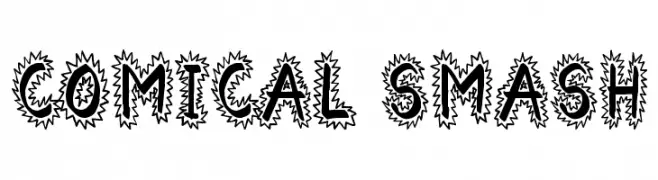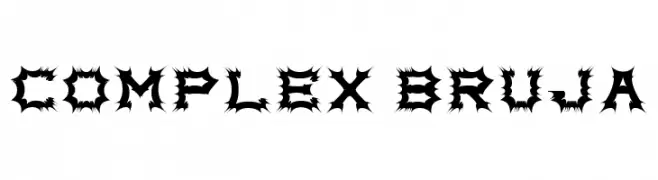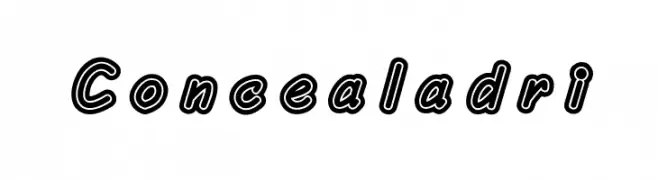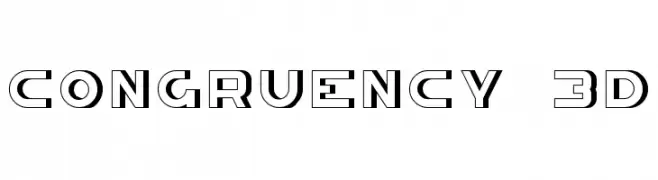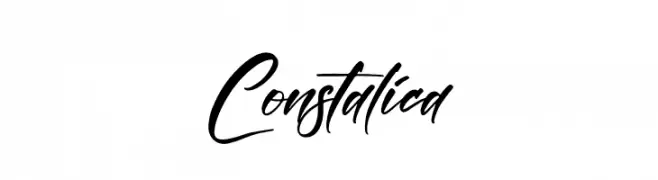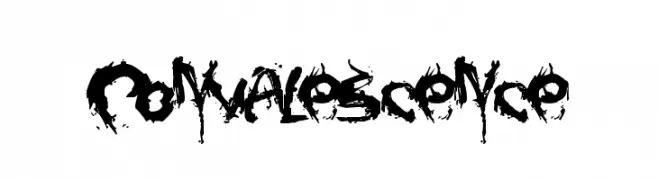
• Comical Smash
A bold, jagged font with a playful, energetic style.
• Coming Soon St
A decorative font with bold characters enclosed in boxes, featuring a marquee light style.
• Complex bruja
A bold, decorative font with thorn-like embellishments and a gothic style.
• Complex bruja
A decorative, gothic-inspired font with thorn-like extensions.
• Concealadri
A bold, outlined font with a playful and dynamic style.
• Congruency 3D
• Constalica
A dynamic and flowing script font with elegant, fluid strokes.
• Convalescence
• cordontvfont
• Cornleaves
An artistic, leaf-inspired decorative font with fluid, organic strokes.